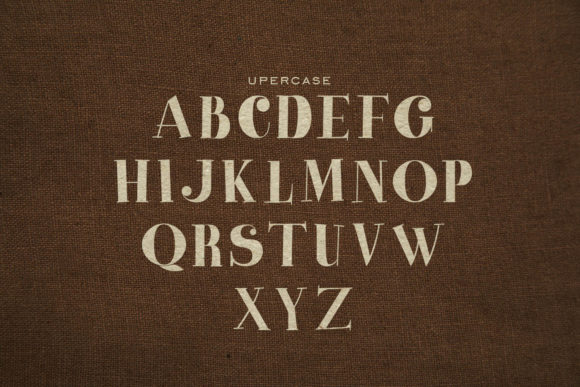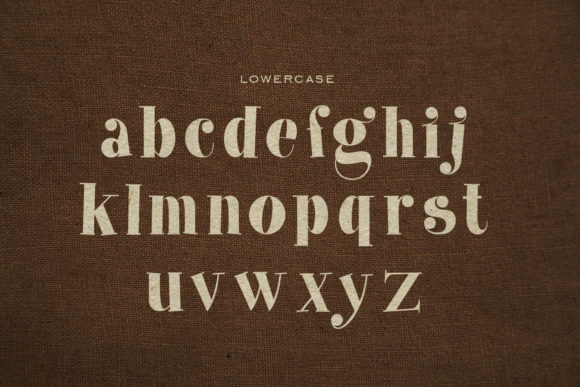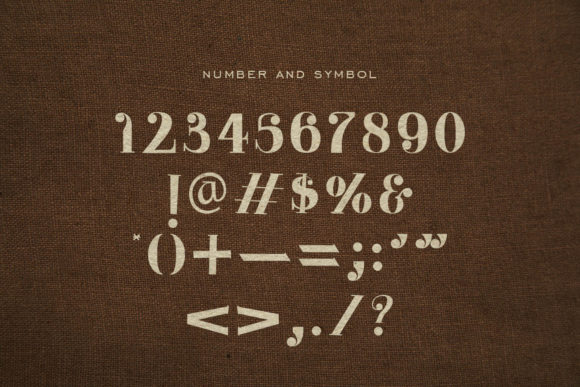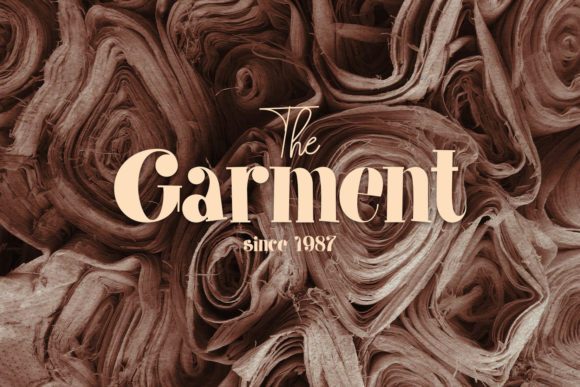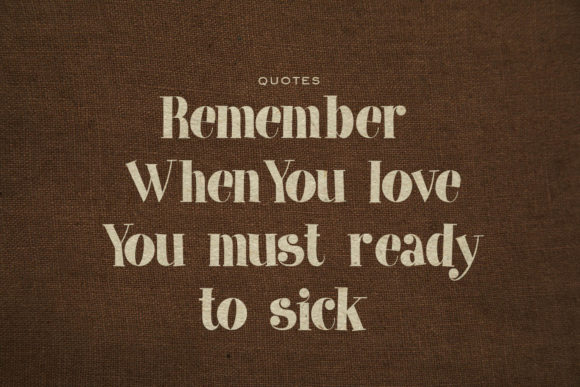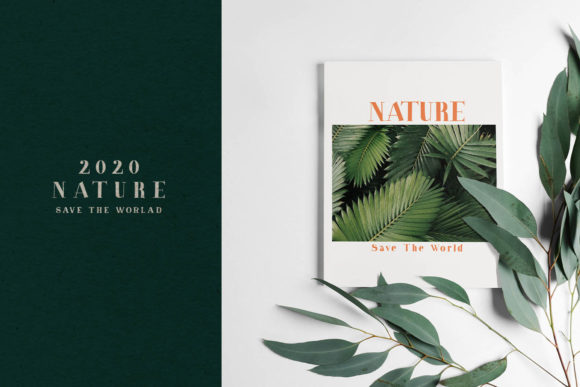
Discover the Elegance of Carole Font: Elevate Your Designs with Versatility
In the world of typography, a font can make or break a design. For designers and crafters looking for a typeface that exudes elegance and versatility, look no further than the Carole Font. This bold and elegant serif font is making waves in the design community, and for good reason. Its unique blend of classic sophistication and modern flair makes it an indispensable tool for creating spectacular designs that stand out from the crowd.
The Essence of Carole Font
Carole is more than just a font; it’s an experience. Its bold and elegant serif design commands attention, while its incredibly versatile style ensures it fits seamlessly into a wide range of design projects. Whether you’re working on a luxury brand logo, a wedding invitation, or a high-end product catalog, Carole Font brings a level of sophistication that’s hard to match.
Why Designers Love Carole Font
Designers and crafters are always on the lookout for fonts that can elevate their work and help them express their creative vision. Carole Font checks all the right boxes:
- Versatility: Carole’s design is incredibly versatile, making it suitable for a wide range of projects, from elegant headings to detailed body text.
- Elegance: The serif details add a touch of classic elegance, perfect for designs that require a sophisticated look.
- Readability: Despite its bold nature, Carole maintains high readability, ensuring your message is conveyed clearly and effectively.
- Uniqueness: In a sea of similar fonts, Carole stands out with its unique character, allowing your designs to make a lasting impression.
Using Carole Font in Your Designs
The possibilities are endless with Carole Font. Here are a few ideas to get you started:
- Branding: Use Carole as a logo font for luxury brands, or as a headline font for brochures and flyers.
- Weddings and Events: Create stunning wedding invitations, place cards, and event banners with Carole’s elegant touch.
- Packaging: Elevate product packaging with Carole’s bold and sophisticated look, perfect for high-end products.
- Digital Content: Use Carole in digital content like blog headers, social media graphics, and email newsletters to add a touch of elegance.
Tips for Maximizing Carole Font’s Potential
To get the most out of Carole Font, consider the following tips:
- Experiment with Sizes: Play with different font sizes to create visual hierarchy and emphasize key messages.
- Pair with Complementary Fonts: Combine Carole with sans-serif fonts for a modern contrast or with script fonts for added elegance.
- Adjust Line Spacing: Optimize line spacing to improve readability and ensure your text flows smoothly.
- Use Color Wisely: Select colors that complement Carole’s bold and elegant nature, such as rich blacks, deep blues, or luxurious golds.
Carole Font is a game-changer for designers and crafters looking to infuse their projects with elegance and versatility. Its bold and elegant serif design, combined with its incredible versatility, makes it the perfect choice for a wide range of design applications. Whether you’re creating luxury brands, elegant wedding invitations, or high-end product packaging, Carole Font is sure to elevate your designs and leave a lasting impression. So why wait? Fall in love with Carole’s style and bring your designs to life with this spectacular font.